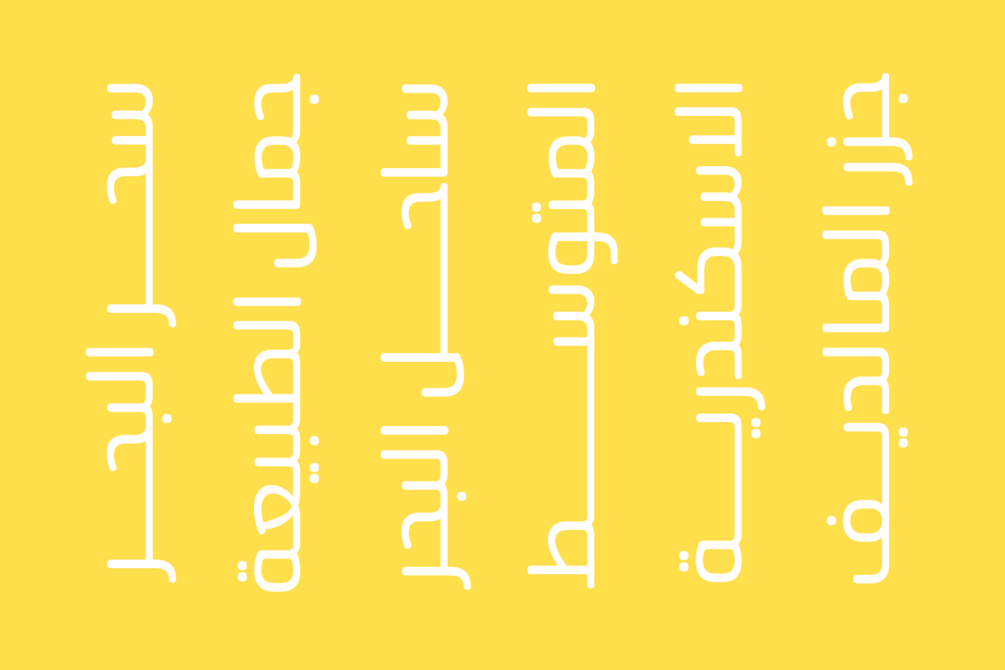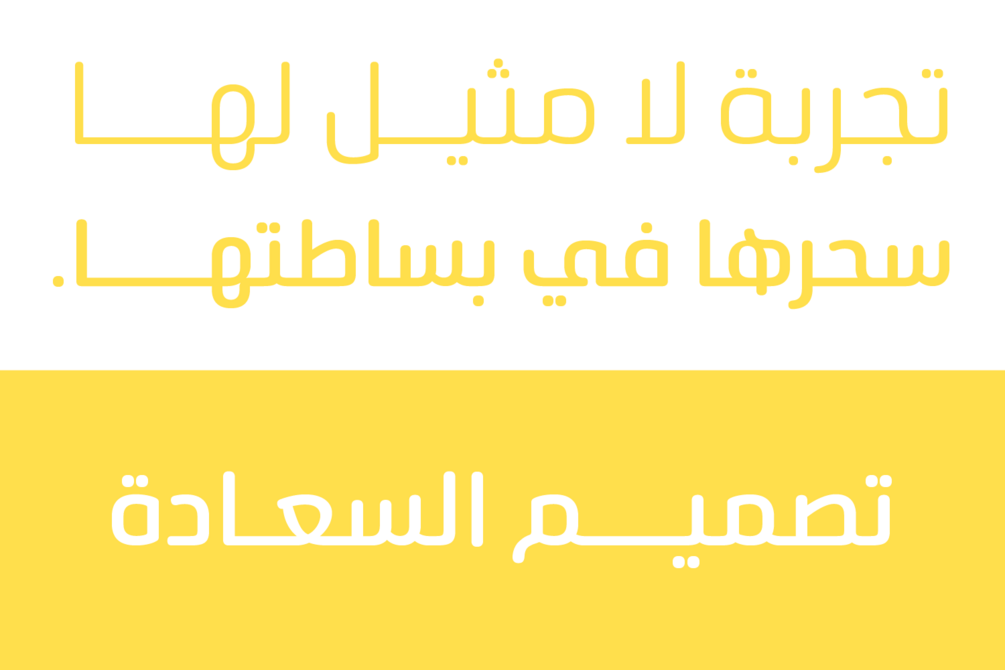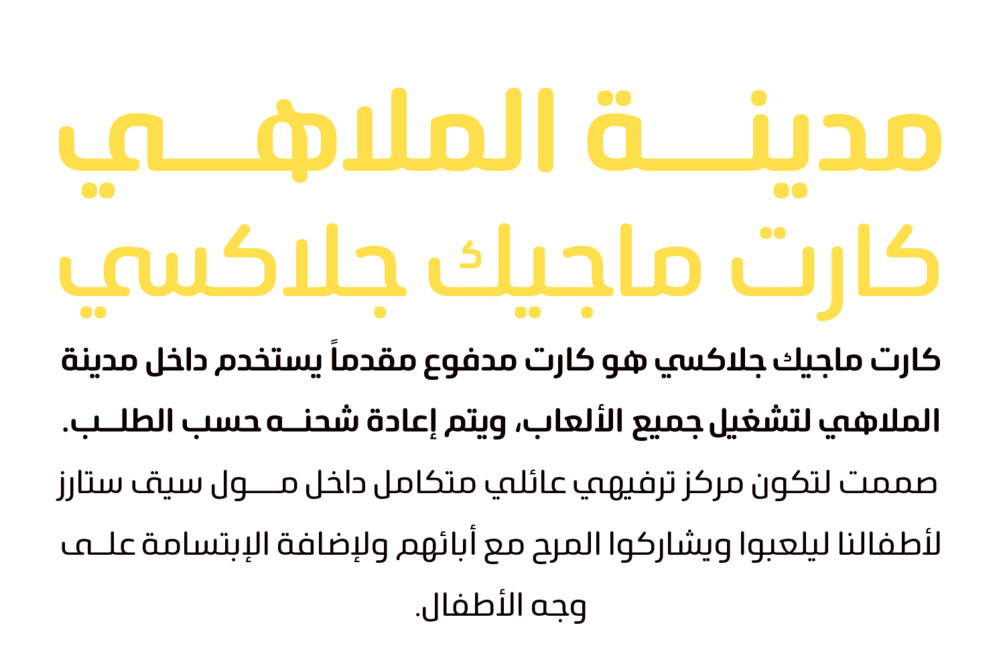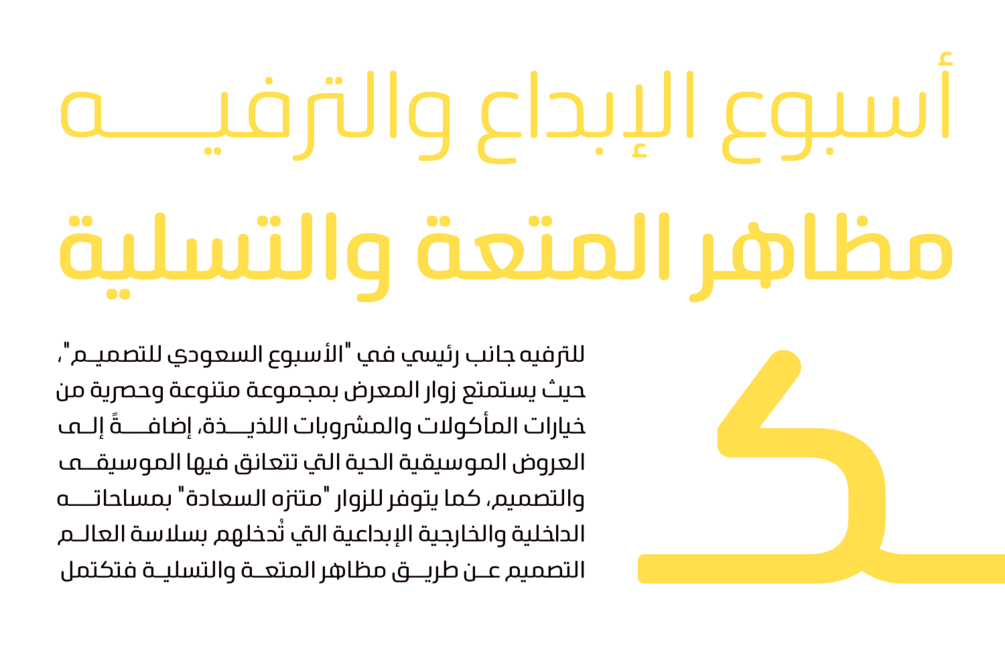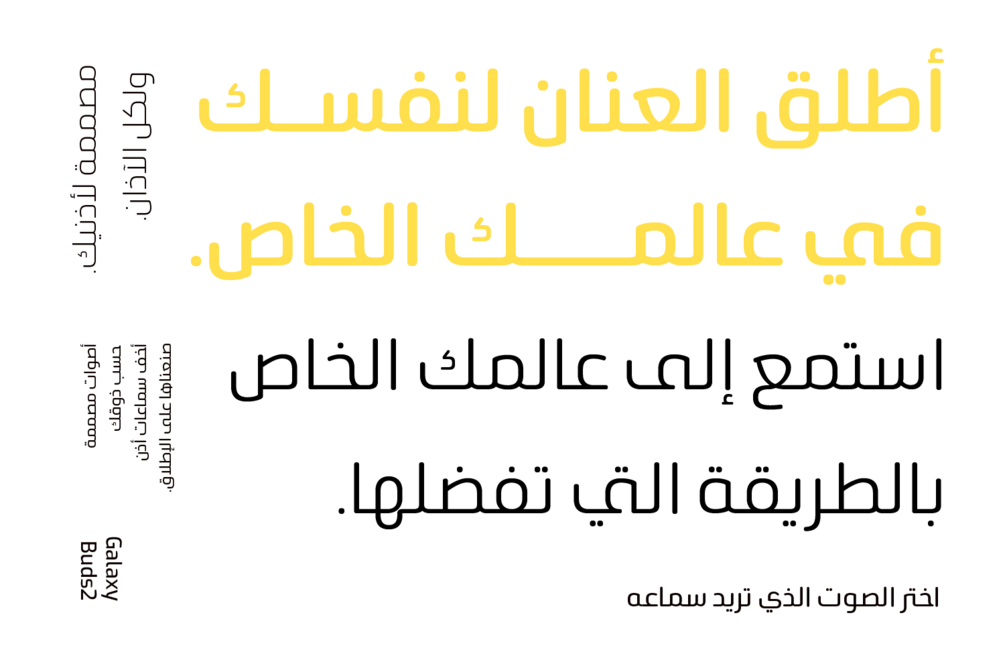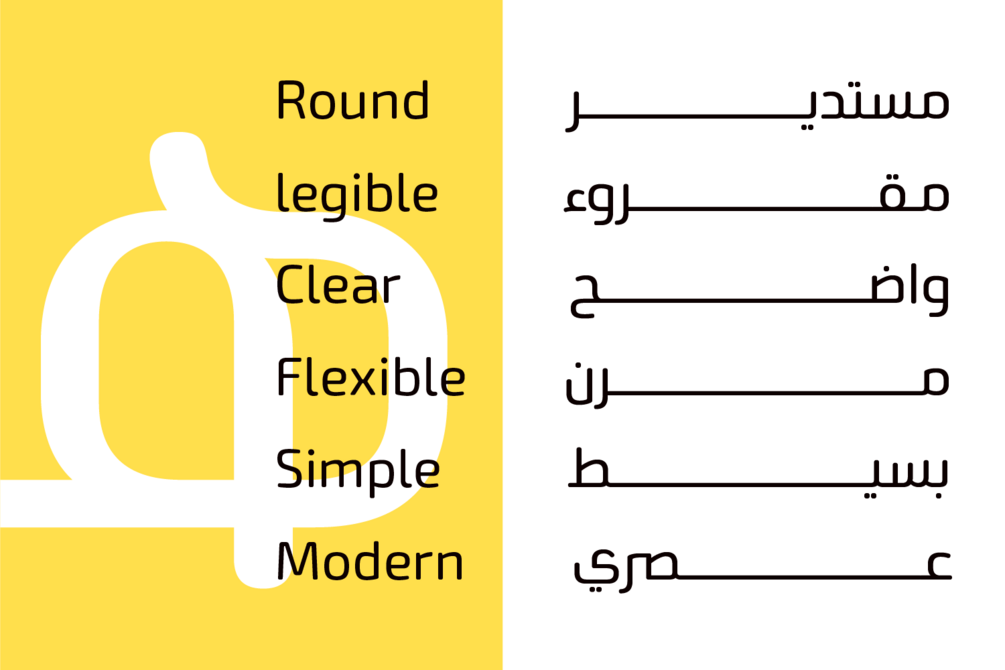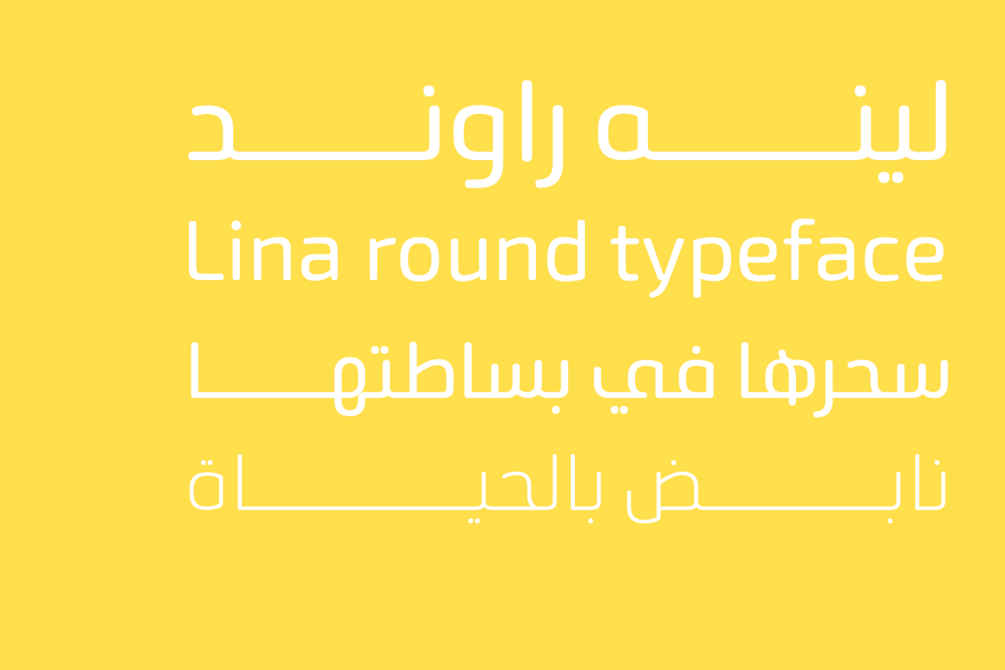
Lina round typeface - خط لينه راوند
Lina round is an Arabic typeface from Lina type family, it has an expressive character with its round and friendly shapes. it's Round, legible, Clear, Flexible, Simple, Modern. With a handful set of OpenType features and alternatives. Lina type family consists of Lina soft, Lina sans, Lina round.
the design is inspired by the Kufic calligraphic style and influenced by the Naskh style.
Lina round was highly crafted in order to perform well both on screen and in print. The large x-height and open counters make it function well even on small font sizes.
It has a wide range of use possibilities headlines, logotypes, branding, books, magazines, motion graphics, and use on the web and Tv.
Lina round consists of 7-weight versions from thin to bold.